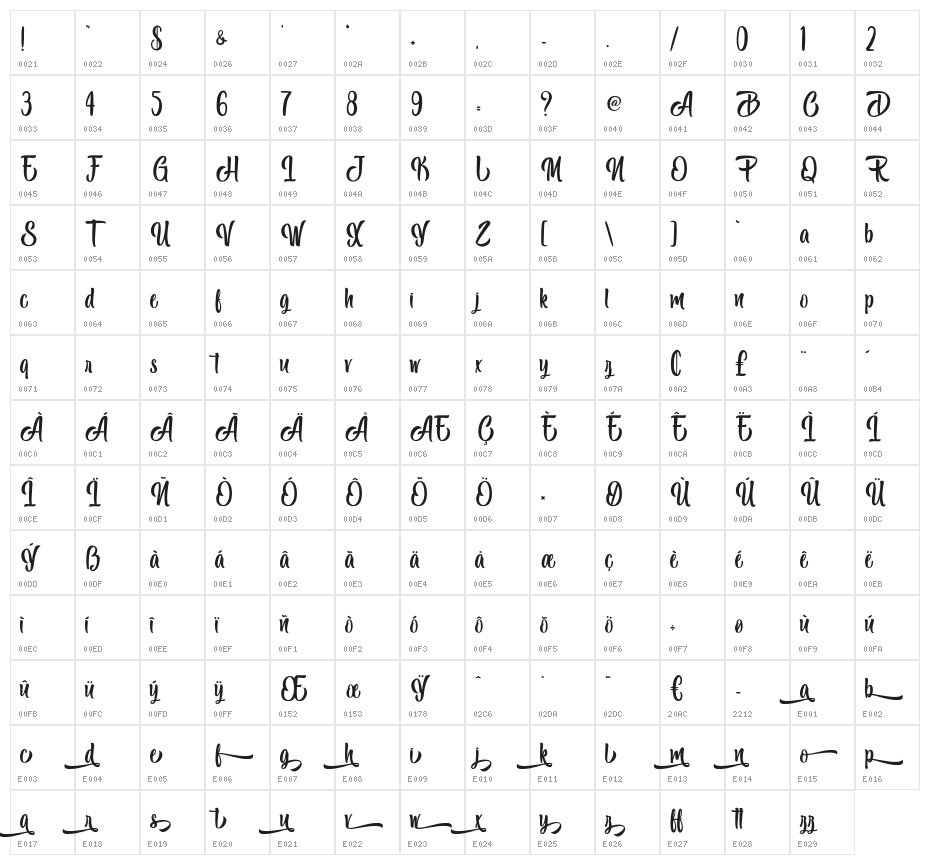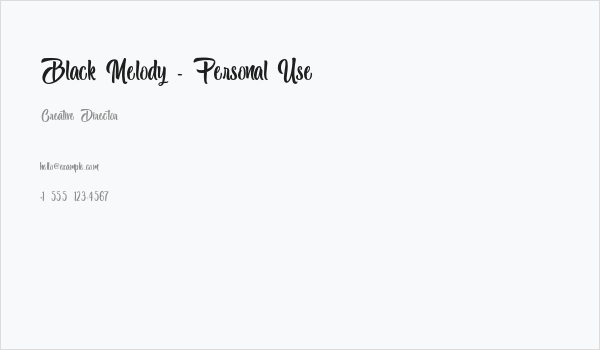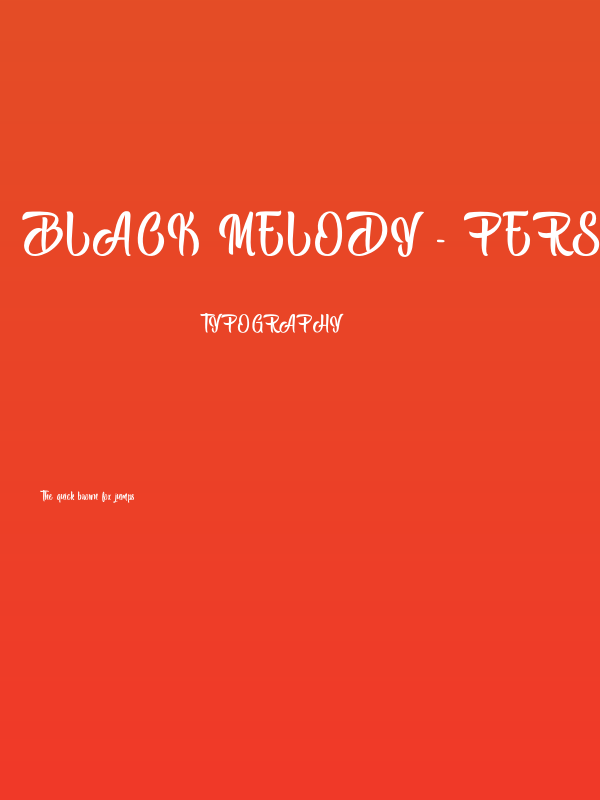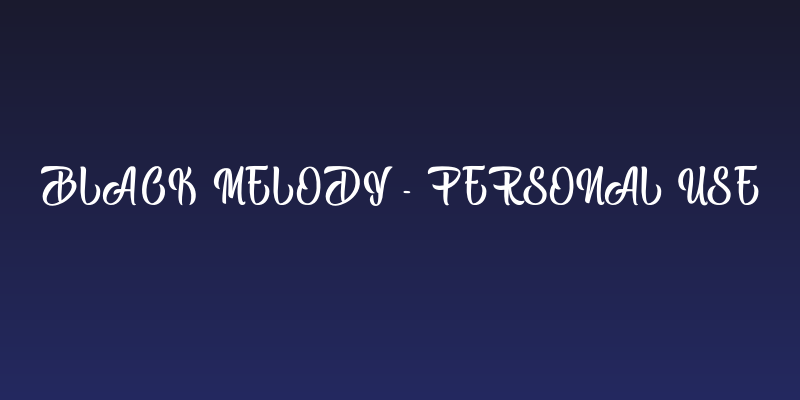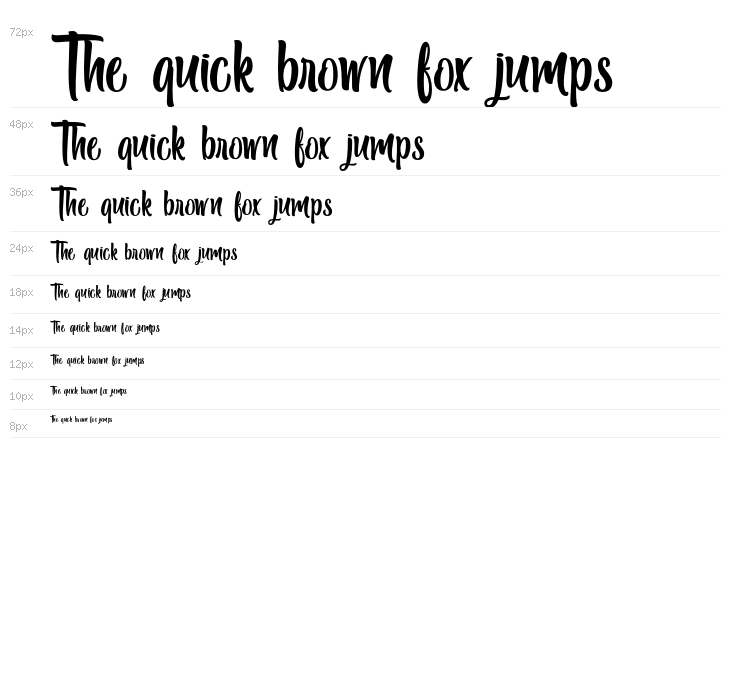
Black Melody - Personal Use Font
Black Melody - Personal Use Description
This font features a bold and flowing script style, characterized by its elegant and artistic curves. The uppercase letters are distinct with a playful yet sophisticated flair, while the lowercase letters maintain a consistent and smooth flow. The numbers and special characters are designed to complement the overall aesthetic, making them suitable for decorative purposes. The font's strokes are moderately thick, providing a balanced contrast that enhances readability without compromising its decorative appeal.
| Proposed Projects | Ideal for wedding invitations, greeting cards, branding projects, and decorative signage. |